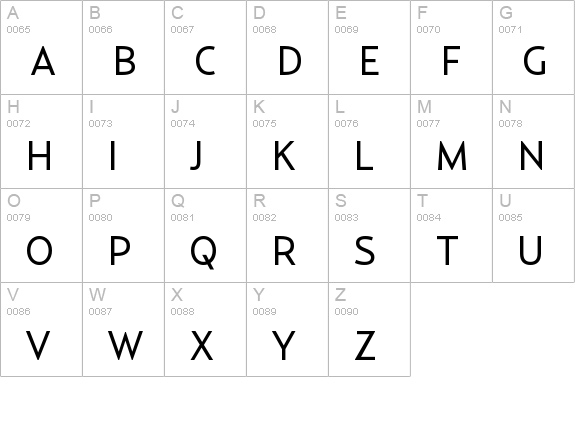
Relay-Regular Font Details
Relay-Regular is the standard, neutral variant in the Relay typeface family \xE2\x80\x94 well suited to general body text, paragraphs, and standard typographic work.
Relay-Regular font is a versatile and modern typeface that adds a touch of elegance to any design project. Its clean lines and balanced proportions make it suitable for a wide range of applications, from branding to editorial design. This font features a unique combination of sharp angles and smooth curves, creating a harmonious and eye-catching look. The characters are carefully crafted with attention to detail, resulting in a legible and sophisticated typeface. Whether you're designing a logo, creating a website, or working on a printed publication, Relay-Regular font will bring a professional and polished aesthetic to your work. Its timeless design ensures that it will remain relevant for years to come. One of the best things about Relay-Regular font is that it is free! That's right, you can download this amazing font for no cost at all. Simply visit FontsMarket.com and get access to this high-quality typeface without any restrictions. So why wait? Enhance your designs with the elegance and versatility of Relay-Regular font. Download it for free today at FontsMarket.com and unlock a world of creative possibilities.